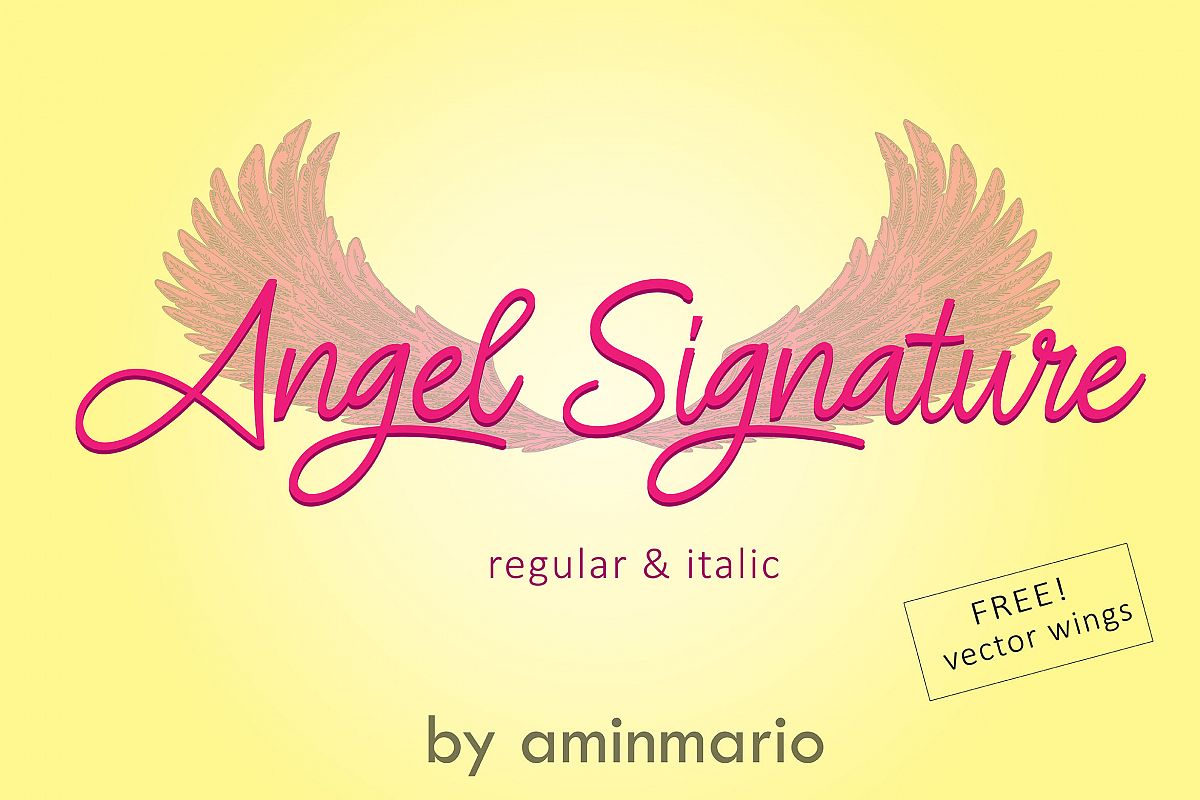
ANGEL SIGNATURE
We introduce our new product called ANGEL SIGNATURE.
Angel Signature is a new script with a signature handwritten ,
signature style make this font looks natural, classy and perfect for any awesome project that need hand writing taste.
This is suitable for logos, watermarks on photography, signatures, branding, advertisement, quotes, invitations, stationery, wedding design,album covers, business cards, clothing, magazines, posters, and more!
As usual ,the font comes with many opentype features such as Alternates,Ligature and also support multilingual. You can access all those alternate characters by using Opentype or Glyph program such as Adobe Illustrator cs,Adobe Photosop cc, Adobe InDesign, etc.